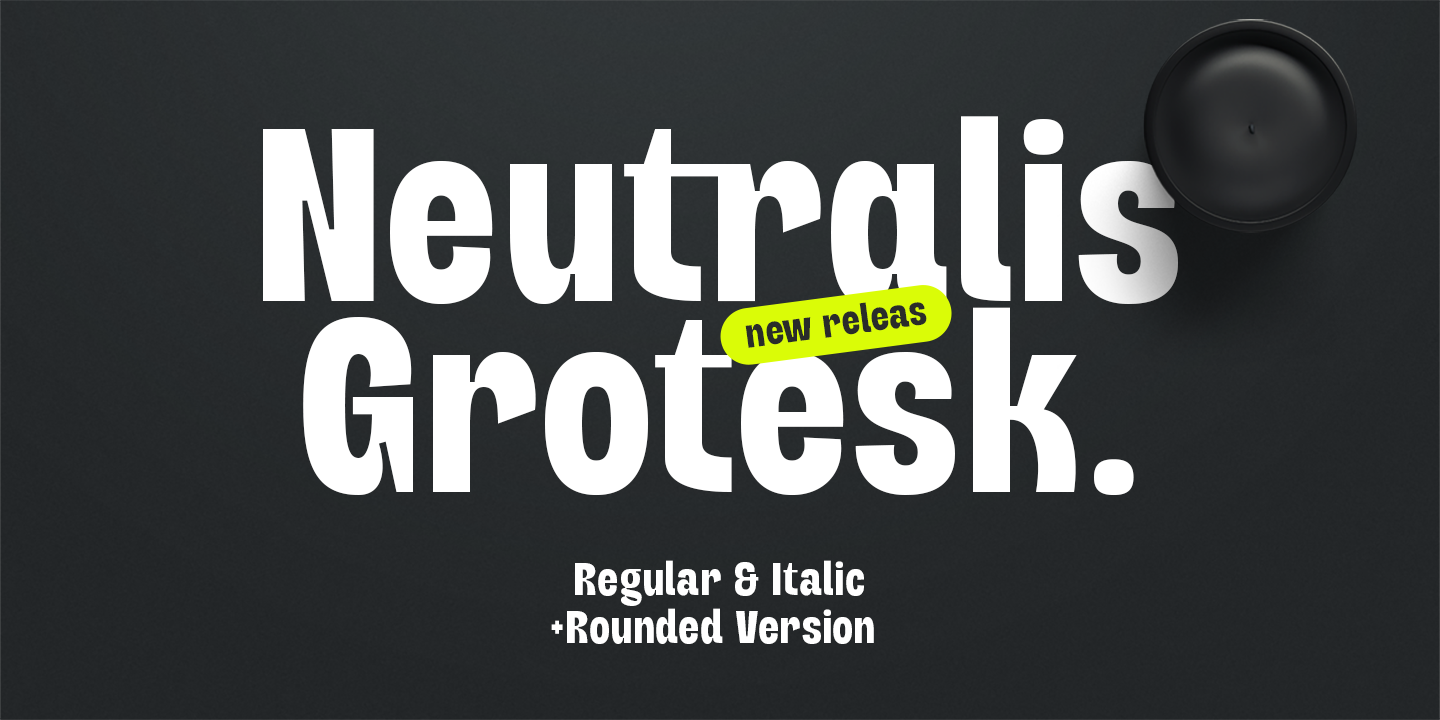
Neutralis Font Free Download
Neutralis Font is perfect for corporate branding, professional presentations, minimalist web design, clean editorial layouts, modern annual reports, financial documentation, healthcare branding, tech company identities, academic publications, and contemporary business communications. This versatile typeface provides exceptional clarity and professional appeal across all applications.
What makes Neutralis Font exciting is its masterful balance of neutrality and character that creates perfect readability without sacrificing personality. The font achieves optimal legibility through carefully refined letterforms that maintain clarity at any size while offering subtle design sophistication. Its clean geometric foundation combined with humanist warmth makes it exceptionally versatile for both corporate environments and creative applications requiring professional credibility.
The Neutralis Font family includes comprehensive weight variations from Thin to Black, featuring Regular, Italic, Condensed, and Extended versions. Each style maintains consistent optical balance and spacing characteristics, providing designers with a complete typographic system for complex multi-layered design projects and brand identity systems.
Whether you're creating corporate identity systems, designing professional publications, or developing clean user interfaces, Neutralis Font Free Download provides the reliable typography foundation needed for effective communication. This font seamlessly adapts to any context while maintaining its distinctive clarity and professional appeal. Its meticulously crafted letterforms ensure excellent performance across digital screens, print materials, and large-scale environmental graphics, making it an indispensable tool for modern designers seeking typographic excellence.